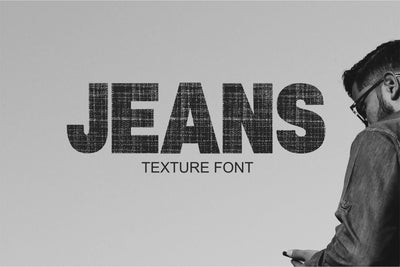
Jeans Font
Jeans font is a cute and casual decorative font with an incredibly friendly feel. It will elevate a wide range of design projects to the highest level, be it branding, headings, wedding designs, invitations, signatures, logos, labels, and much more!